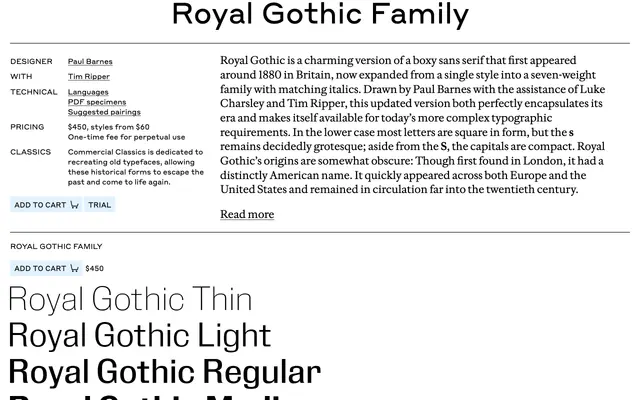
Royal Gothic
Commercial Type · Paul Barnes with Luke Charsley and Tim Ripper
Royal Gothic specimen from Commercial Type
Paul Barnes's seven-weight revival of an 1880s British boxy sans, with compact capitals, square lower case and a still-grotesque s.
A fourteen-style revival sans by Paul Barnes with Luke Charsley and Tim Ripper, extending a single boxy sans first seen in Britain around 1880 into Thin, Light, Regular, Medium, Bold, Black and Fat with matching italics. Most lower-case letters are square, the capitals are compact, and the s stays decidedly grotesque. The original style appeared across Britain, Europe and the United States and stayed in circulation deep into the twentieth century. Suits Victorian and Americana-leaning identities, packaging and editorial display work.
Commercial Type describe Royal Gothic as a charming version of a boxy sans serif first seen around 1880 in Britain, expanded from a single original style into a seven-weight family with matching italics. Most lower case letters are square in form, the capitals are compact and the s remains grotesque.